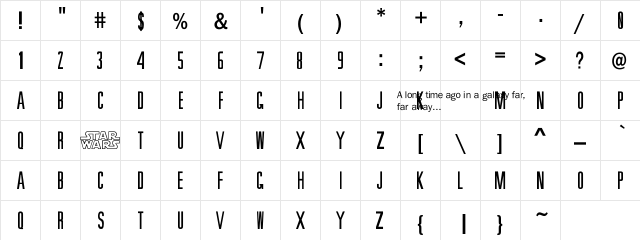
SW Crawl Title Regular
| Foundry | TFN Fan Films |
| Designer | Matt Pfingsten |
Design Context for SW Crawl Title Typeface
SW Crawl Title is a composed and adaptable typeface that performs quietly and consistently across a wide range of design contexts.